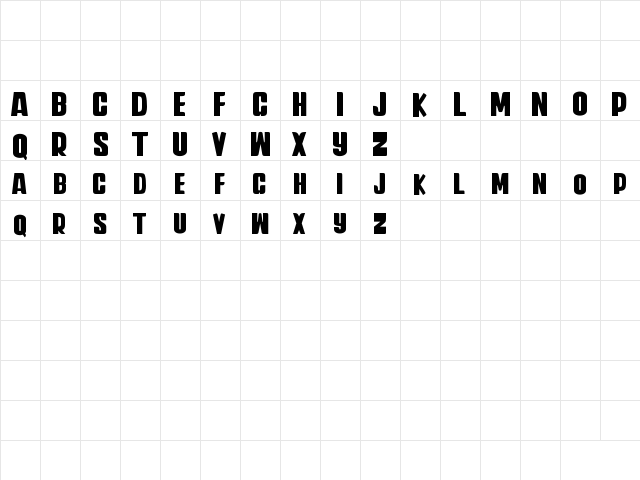
Iwanbanaran Weight Regular
| Designer | Aldedesign 2018 |
Design Context for Iwanbanaran Weight Typeface
Iwanbanaran Weight offers clean, dependable letterforms without strong stylistic allegiance, making it a practical choice for designers who need flexibility.